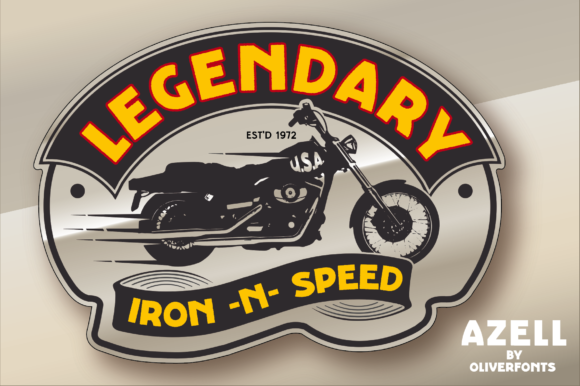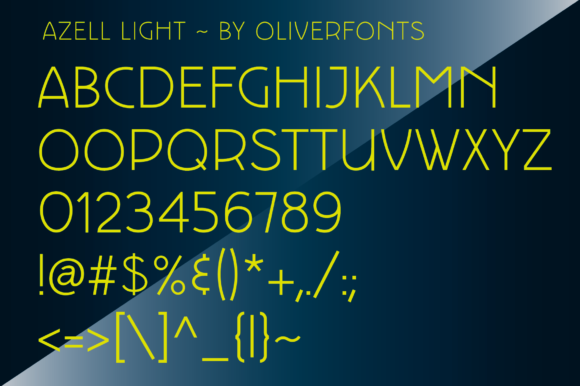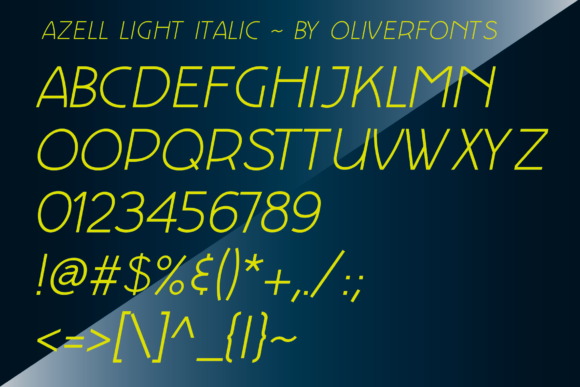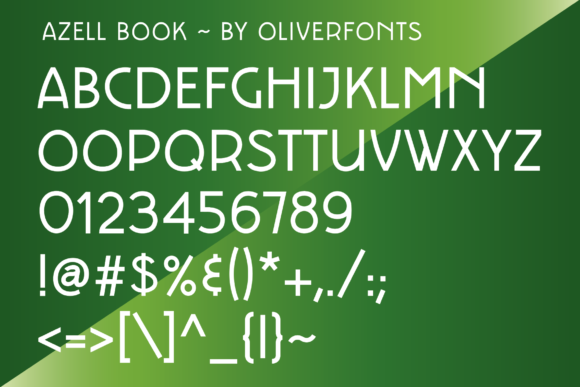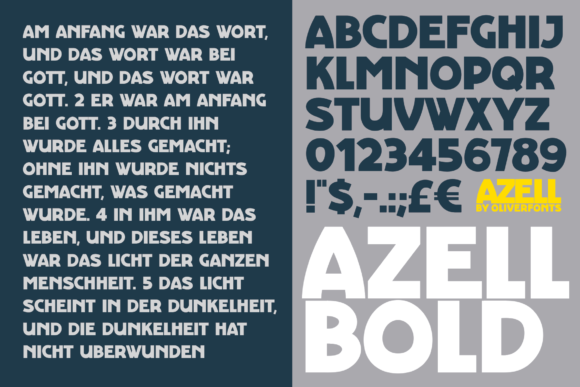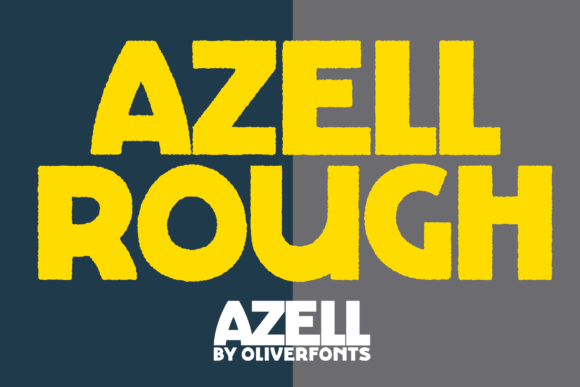
The Perfect Display Font for Your Next Big Project
Have you ever stared at a blank canvas, feeling stuck and unsure of how to bring your creative vision to life? We’ve all been there. But what if you had the perfect tool to break through that creative block and make your project truly stand out?
Enter Azell Font, a bold and thick lettered display font designed to make a statement. Whether you’re working on a logo, poster, or social media campaign, Azell Font is the perfect companion to help you add some extra oomph to your design. Its versatility makes it easy to match with a wide range of projects, from elegant and sophisticated to bold and playful.
For designers, Azell Font is a valuable addition to their toolkit, offering a unique and eye-catching way to communicate their message. With its bold and striking appearance, Azell Font is sure to grab attention and leave a lasting impression on your audience.
Azell Font Key Features
- Font Family: Azell Font is a sans-serif font family designed for digital use.
- Character Set: The font includes a comprehensive set of characters, including Latin, Cyrillic, and Greek scripts, with over 1000 glyphs.
- Resolution: Azell Font is designed for high-resolution displays, with optimal legibility at resolutions up to 300 DPI.
- Size: The font family includes 8 weights, ranging from Light to Black, with corresponding italic and oblique styles.
- Unique Characteristics: Azell Font features a unique geometric design with a subtle rounded edge, making it suitable for modern digital interfaces and publications.
Azell Font Review
I’ve had the chance to play around with the Azell Font, and I’ve got some thoughts to share. ✨ First of all, I love the unique blend of modern and vintage elements. It’s got a certain charm that sets it apart from more generic sans-serif fonts.
Some of the strengths of the Azell Font include:
- Its versatility – it works well for both body text and headlines.
- Its ability to evoke a sense of nostalgia, making it perfect for projects with a retro vibe.
- Its legibility, even at smaller font sizes.
However, I do have some reservations about the Azell Font:
- ⚠️ It may not be the best choice for projects that require a super-minimalist aesthetic, as it’s a bit too ornate for that.
- ⚠️ It’s not as widely supported as some other fonts, so you may encounter issues with certain browsers or devices.
Overall, I think the Azell Font is a solid choice for designers who want to add some visual interest to their projects. It’s not perfect, but it’s definitely worth considering – especially if you’re looking for something with a bit of character.
Azell Font is ideal for use in creative projects, such as graphic design, digital art, and typography. It can add a touch of elegance and sophistication to your designs. Some common use cases include:
– Headings and titles in graphic design projects
– Display text in digital art and illustrations
– Blog post titles and headings
Alternatives to Azell Font for Designers
Montserrat is similar to Azell Font in its simplicity and modern feel, but it has a more geometric and industrial look. While Azell Font is more elegant and refined, Montserrat is more edgy and bold.
Lato is similar to Azell Font in its elegance and refinement, but it has a more rounded and friendly look. While Azell Font is more formal and serious, Lato is more approachable and inviting.